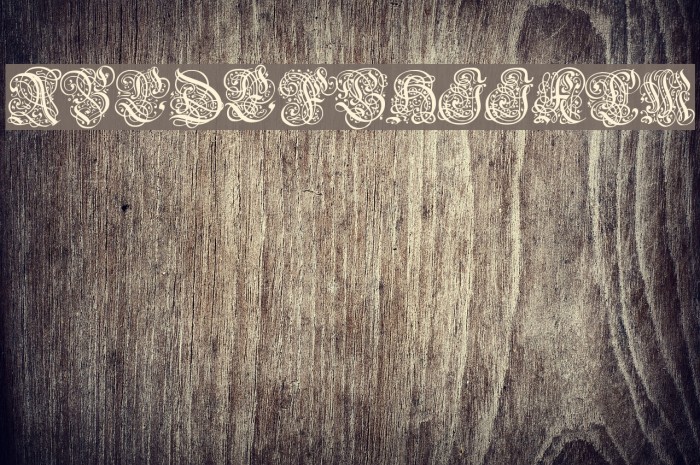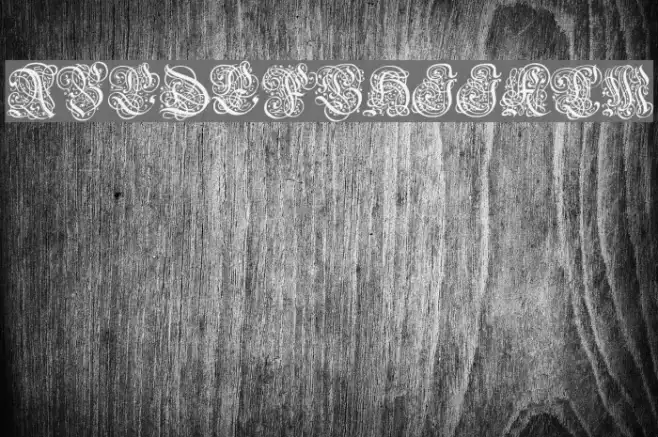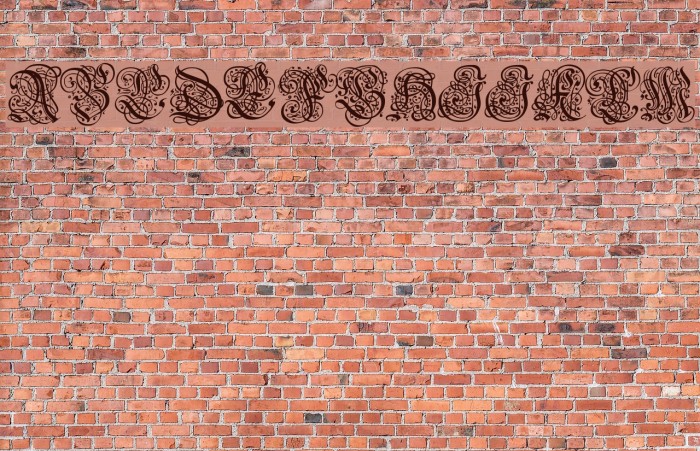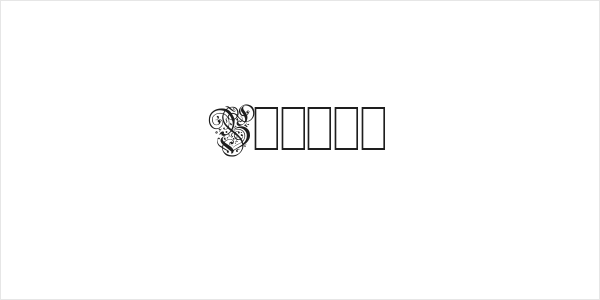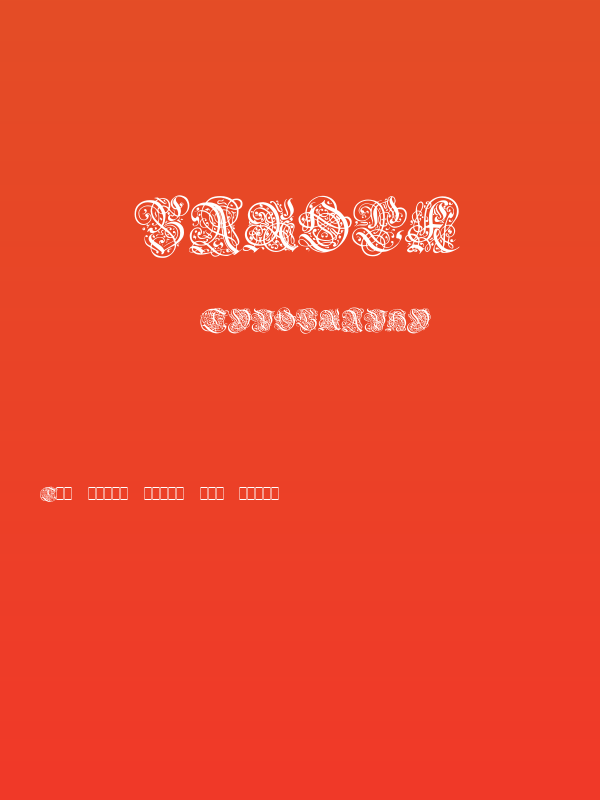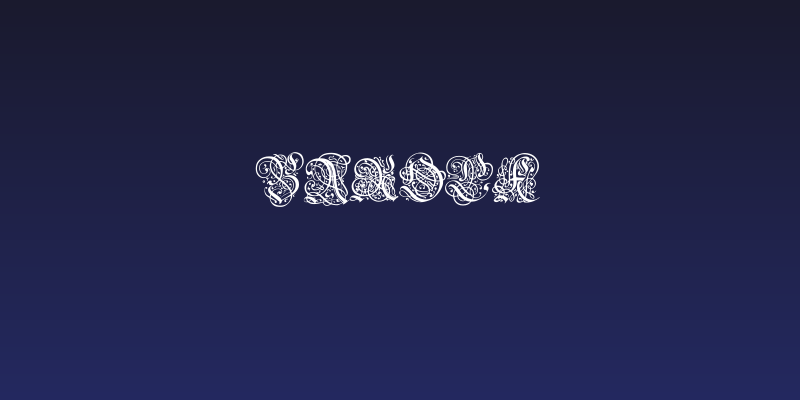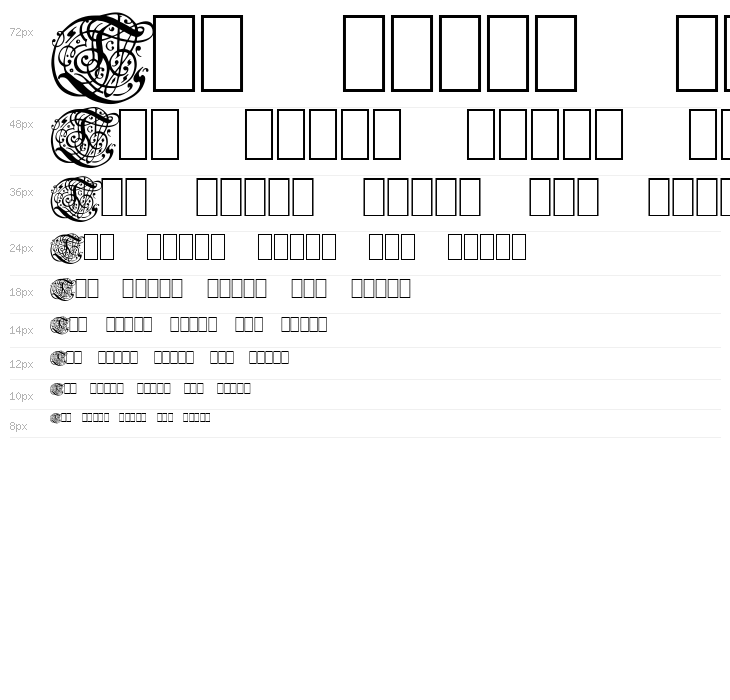
Barock Font
Barock Description
This font is an elaborate and ornate typeface, characterized by its intricate swirls and flourishes that extend from each letterform. The design is highly decorative, with a strong emphasis on artistic embellishments that give it a luxurious and classical feel. Each character is uniquely crafted, featuring detailed curves and loops that intertwine, reminiscent of baroque art and architecture. The font's complexity and elegance make it suitable for projects that require a touch of sophistication and historical charm.
| Proposed Projects | Ideal for wedding invitations, luxury branding, historical themed events, and decorative headings. |